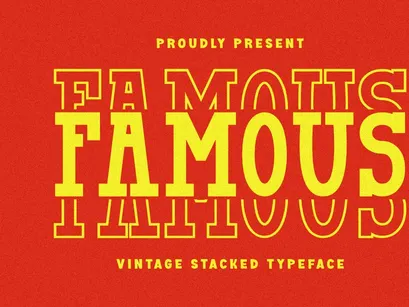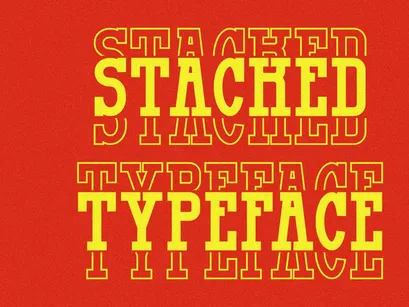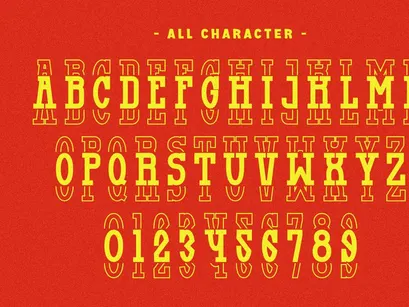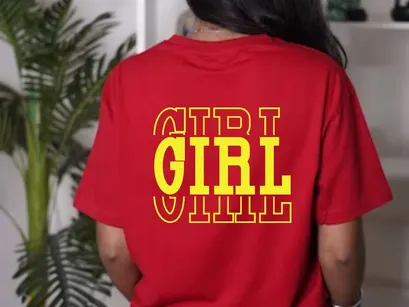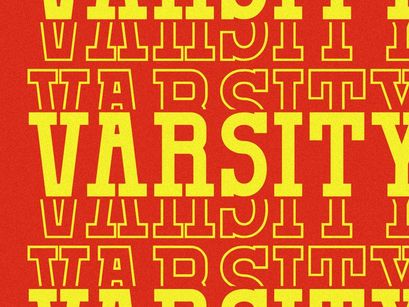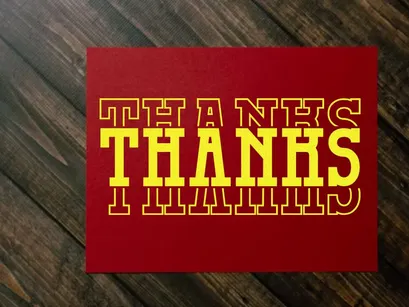
Unleash instant nostalgia with FAMOUS, a dynamic Vintage Stacked Typeface designed for maximum impact. This layered display font includes multiple styles to easily create authentic, colorful, retro effects. Perfect for Apparel Merch, Poster Headlines, and Bold Nostalgic Branding.